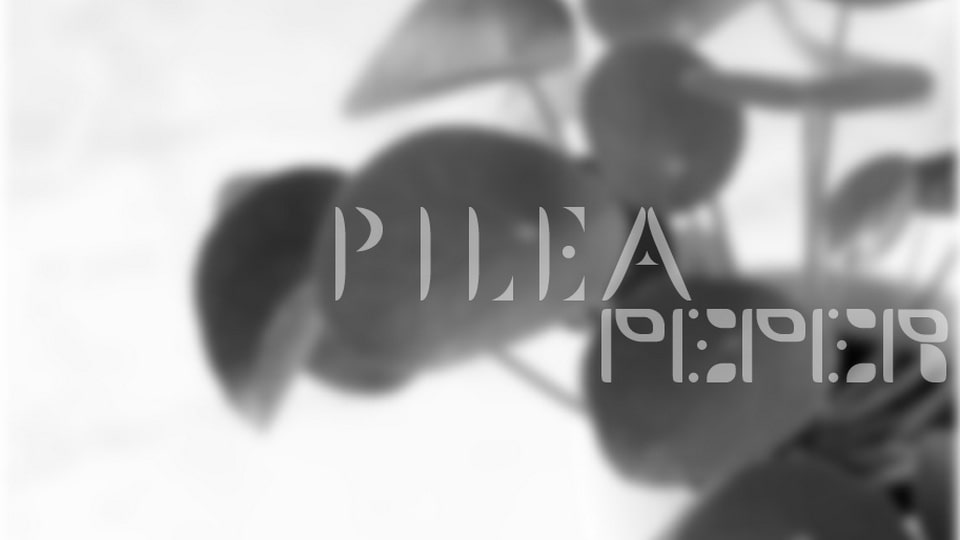
Download Plantasia Pilea Pepper font, a creative display typeface inspired by the Pilea peperomioides. Plantasia is a typeface family created by the students of the G5 Communication 360 class
Designer: Tanguy Dodon